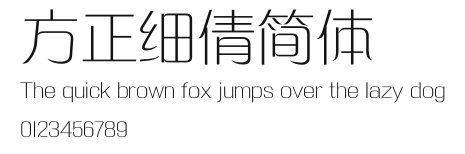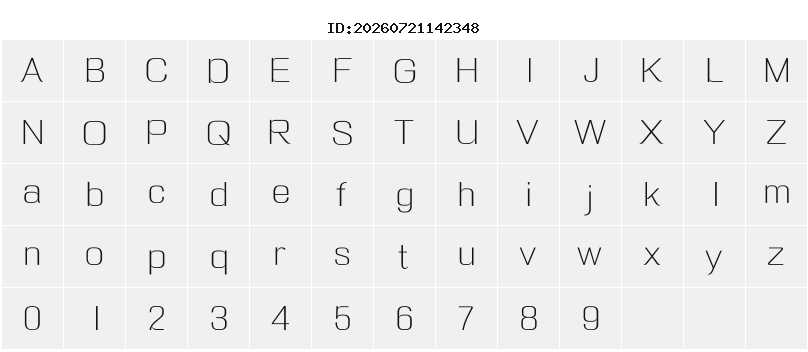
方正细倩简体 Preview
About 方正细倩简体.ttf
方正细倩简体.ttf is a modern, elegant sans-serif font designed for ultimate readability and visual harmony. Perfect for branding, headlines, web design, and print materials.